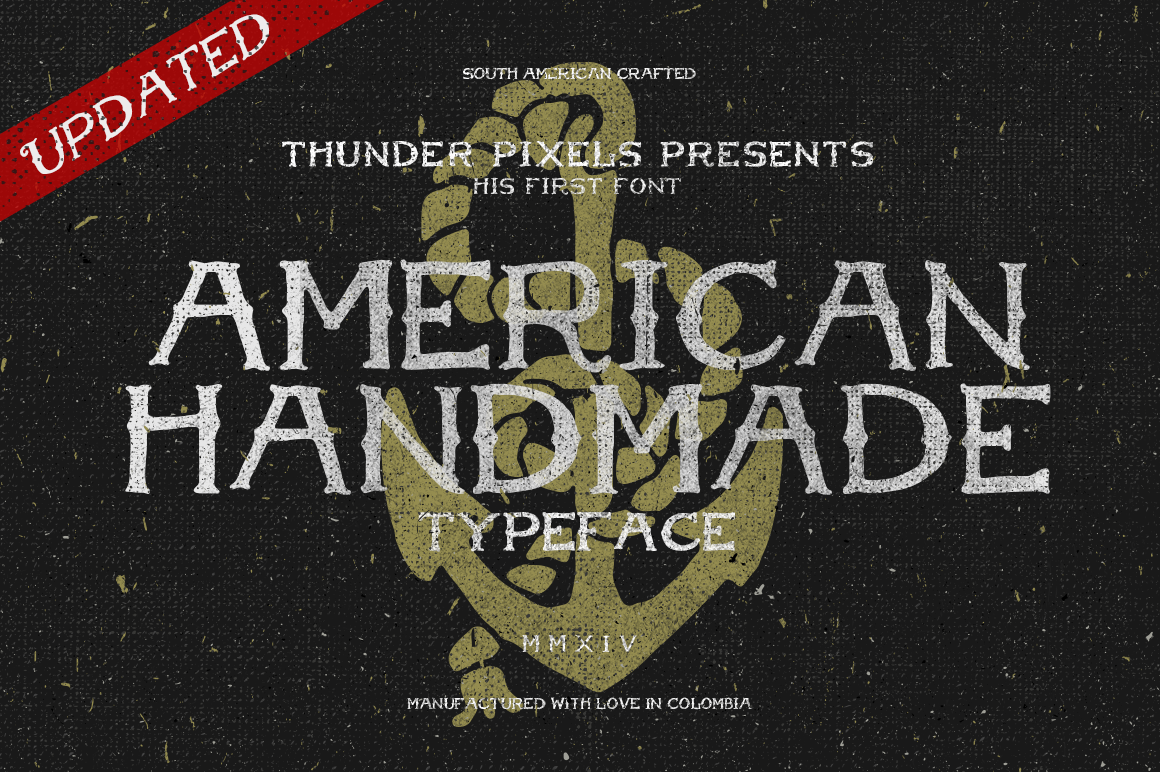
American Handmade Typeface
This is a handmade typography and inspired by the graphic design craft. Only the uppercase letters incorporated.
- This font is intentionally made to be deformed, which will contribute to providing a handmade appearance in every sentence and make it look different.